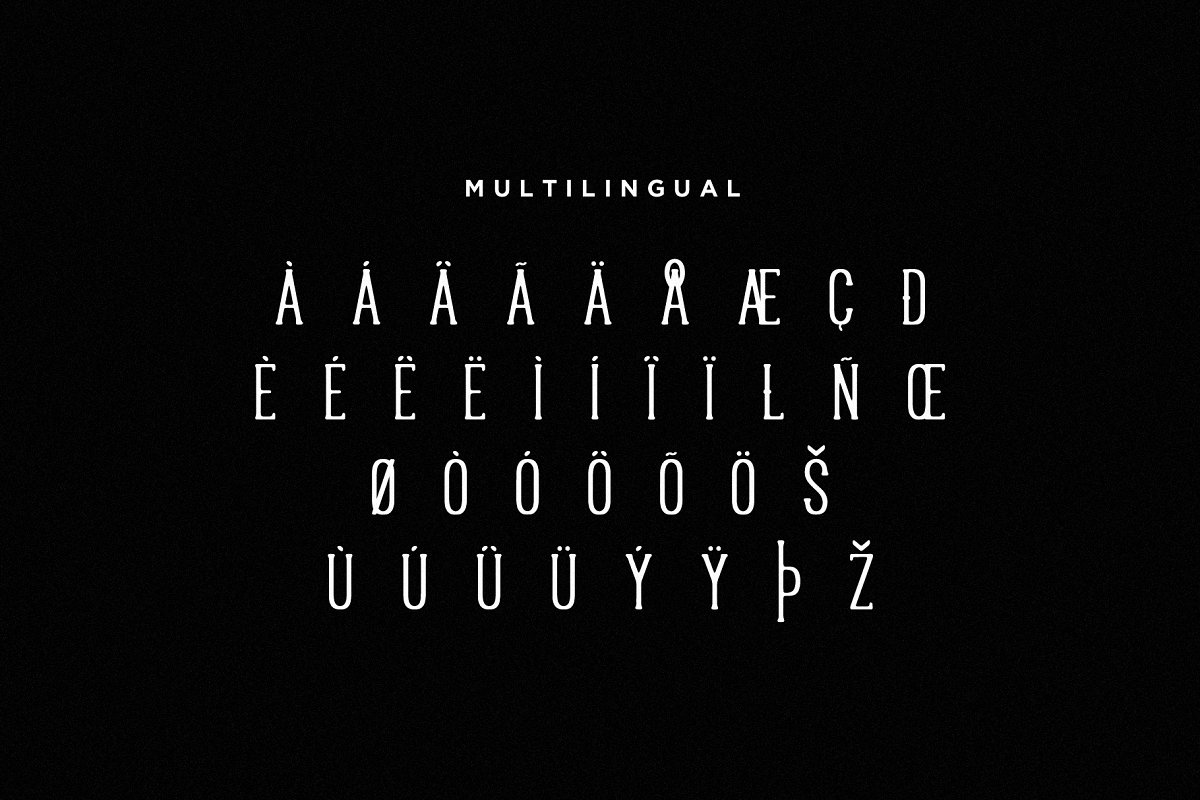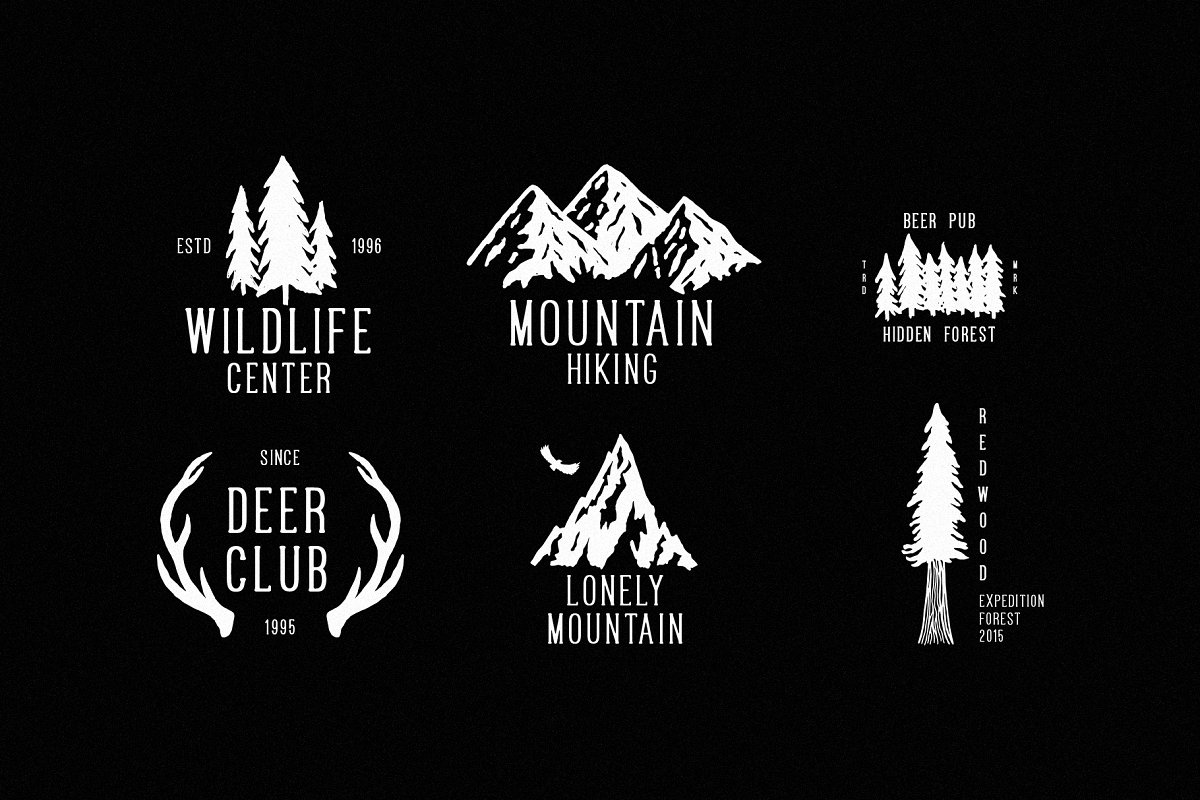
About the Sequoia Extras Font
Sequoia is simple hand drawn serif font, Sequoia has smooth edges, a clean look, can be easily used for branding, logo design, posters, t-shirts, etc, Sequoia Features:LettersNumbersSymbolsMultilingual SupportZip file includes:Sequoia Regular, otfSequoia Regular, ttfSequoia Semibold, otfSequoia Semibold, ttfSequoia Bold, otfSequoia Bold, ttf6 Bonus Badges